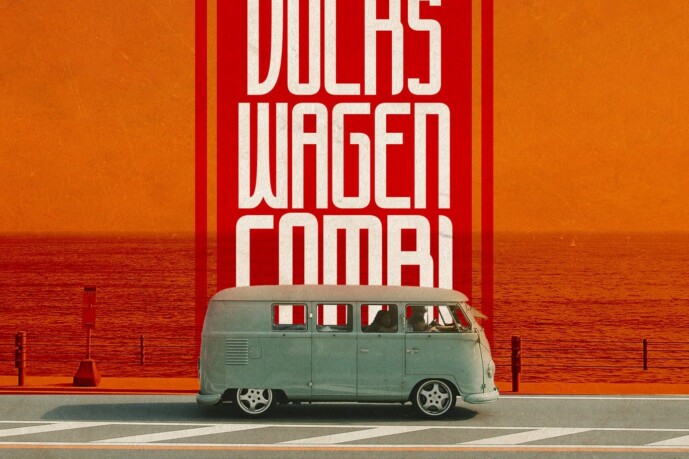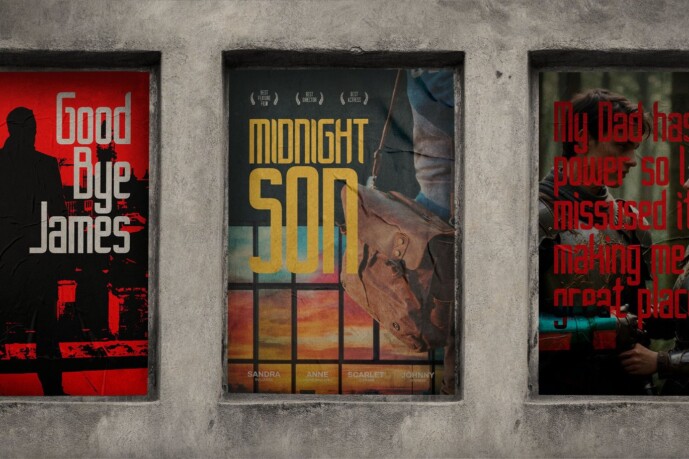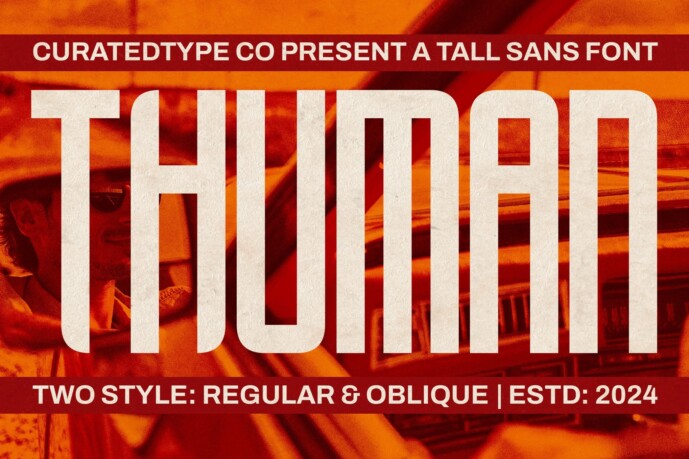
Thuman Font, a tall font that combines boldness with subtle elegance. With its Regular and Oblique styles, Thuman offers a clean, geometric design that stands out without being overwhelming. The Regular style provides clarity and impact, while the Oblique style adds a dynamic touch, making it perfect for a variety of design needs.
Thuman’s tall, narrow typefaces ensure readability and style across print and digital media. Whether you’re working on branding, headlines, or creative layouts, Thuman brings a touch of contemporary sophistication to any project.